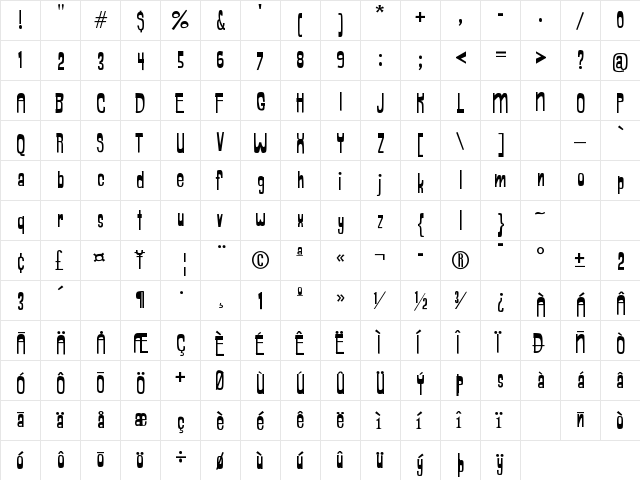
Borlog-Borlog Regular
Design Context for Borlog-Borlog Typeface
Borlog-Borlog offers clean, dependable letterforms without strong stylistic allegiance, making it a practical choice for designers who need flexibility.